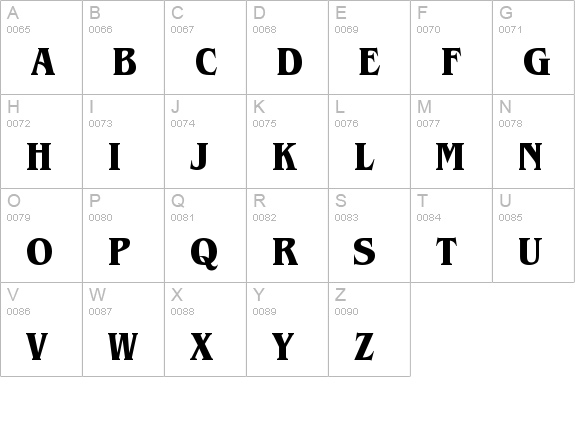
JonathanBoldCondensed is a sleek and modern font that exudes confidence and sophistication. With its bold and condensed design, this typeface is perfect for making a strong statement in headlines, titles, and branding materials. The sharp lines and distinct letterforms of JonathanBoldCondensed give a powerful and impactful look to any design project. What's even better is that JonathanBoldCondensed is available for free download at FontsMarket.com. This means you can easily access this stylish font and use it in your projects without any cost. Whether you're designing a poster, logo, or website, JonathanBoldCondensed will elevate your work with its bold and contemporary aesthetic. Download this versatile font today and add a touch of boldness to your designs.